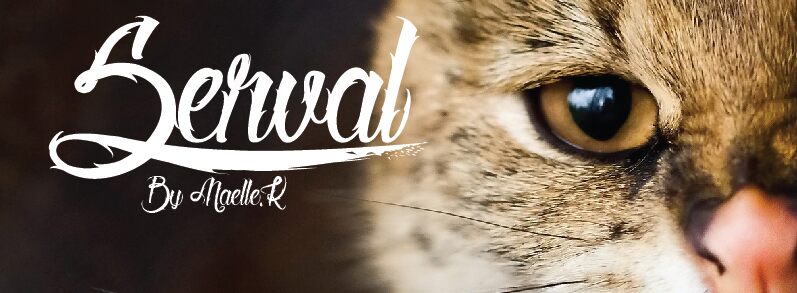
Serval is a free calligraphic script with dramatic capitals and long, sweeping flourishes. Its sharply tapered strokes shift between fine hairlines and broad, dark curves. Letters loop back into themselves and form an ornate, restless silhouette.
It is especially suited to theatrical posters, where the lettering can become part of the spectacle. Invitation designs and fashion packaging can also use its elaborate, formal movement. The extravagant swashes point naturally toward masquerade, romance, and gothic fantasy themes.
Serval